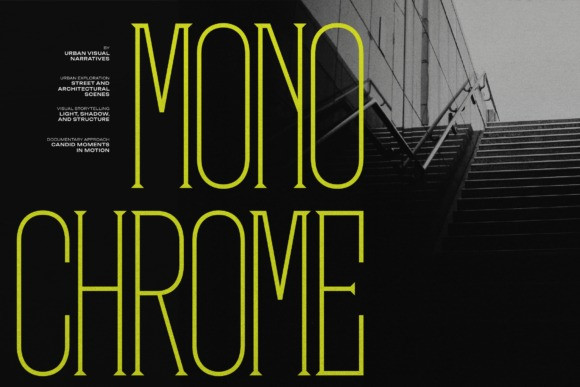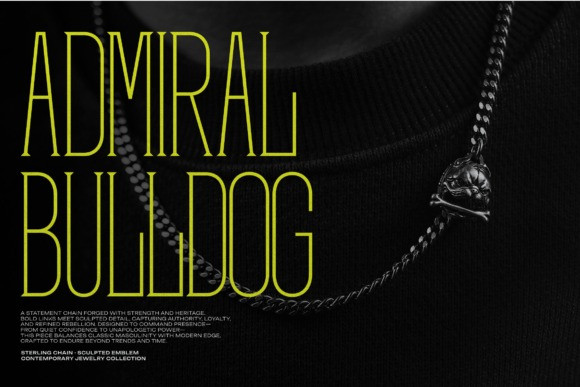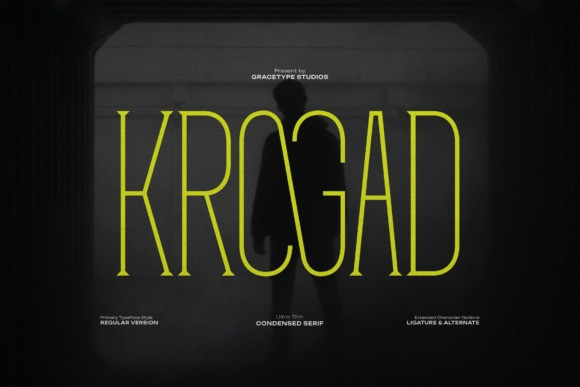
Krogad Font
Krogad Font is a striking, ultra-thin, and condensed serif display font that exudes high-end luxury and dramatic architectural elegance. Its extremely tall and narrow structure, combined with sharp serifs and a delicate stroke weight, creates an immediate feeling of sophistication, tension, and high-fashion drama.
This typeface is perfect for editorial design, luxury branding, cinematic posters, high-contrast photography overlays, and any project that requires a refined, minimalist, and powerfully stylish statement.